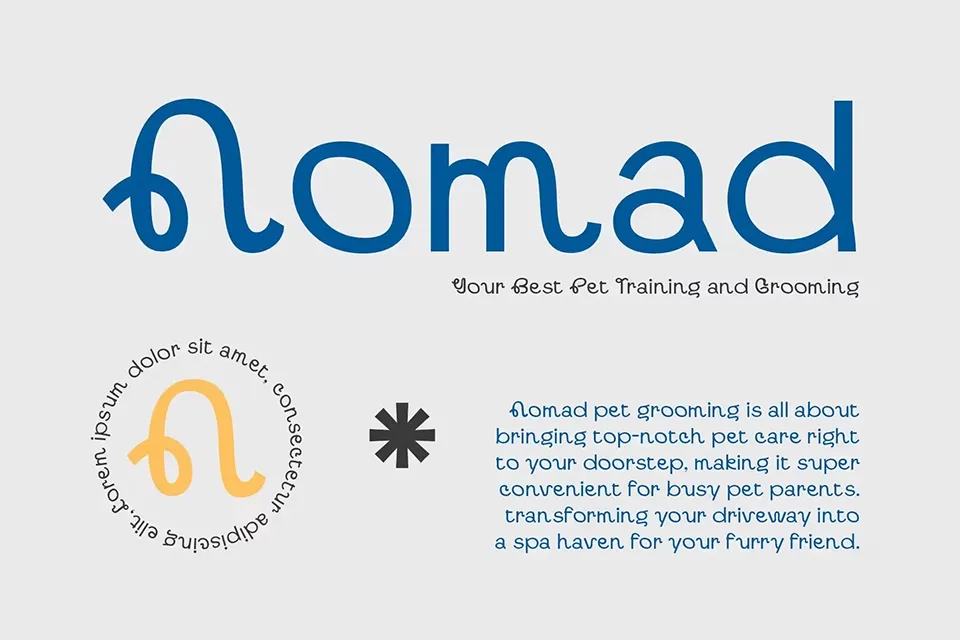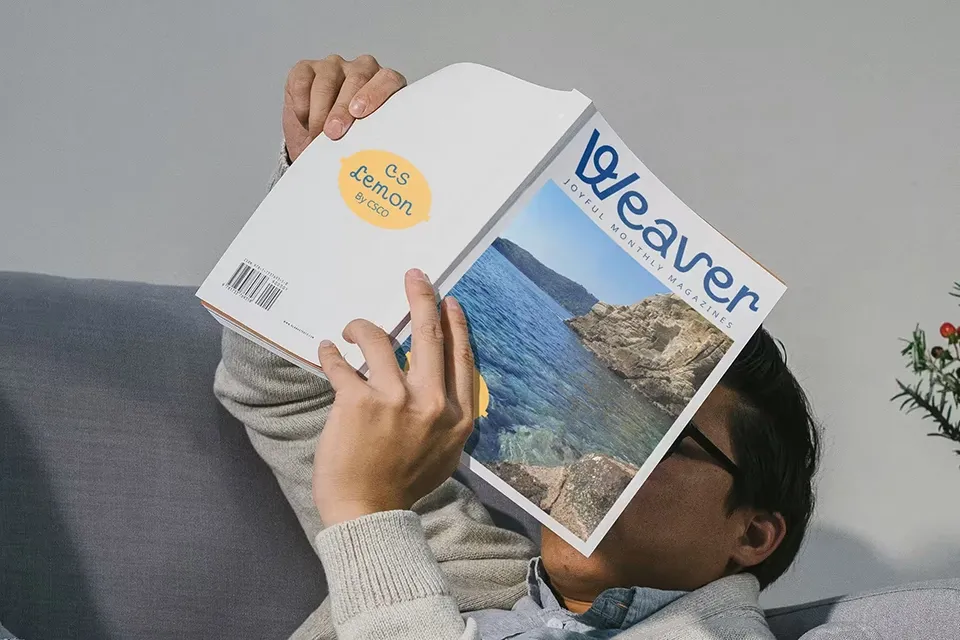
CS Lemon Font
CS Lemon Font is a playful display typeface characterized by its rounded edges and whimsical letterforms, exuding a sense of fun and cheerfulness. Perfect for designs that aim to capture a lighthearted and captivating vibe, this font is ideal for branding, packaging, posters, and any creative project seeking a charming and decorative touch.